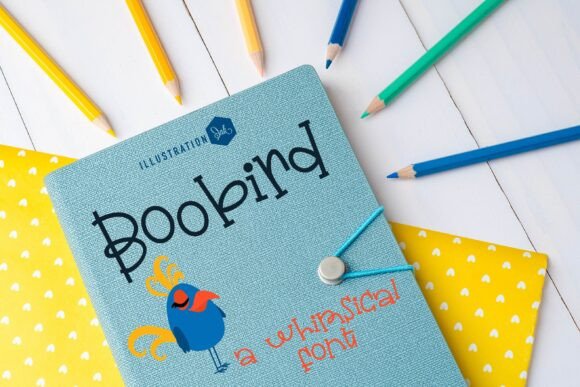
The Boobird Font: A Whimsical Serif for Creative Projects
I still remember the design project that led me to discover the Boobird Font. I was working on a whimsical invitation for a friend’s baby shower, and I was struggling to find the perfect font to match the playful theme. That’s when I stumbled upon Boobird Font, a hand-crafted serif font with a bouncy baseline that instantly captured the lighthearted and carefree spirit of the event.
- ✨ Unique and whimsical design that’s perfect for creative projects
- ✅ Hand-crafted feel that adds a personal touch to your designs
- 🎉 Bouncy baseline that adds a playful touch to your text
- 💻 Works well for both digital and print projects
Of course, no font is perfect, and Boobird Font has a few quirks:
- 🤔 Limited character set, which may not be suitable for projects that require a wide range of characters
- ⚠️ May not work well for body text or long-form content due to its playful and attention-grabbing nature
The Story Behind Boobird Font
Boobird Font was designed by a talented type designer who wanted to create a font that captured the whimsy and playfulness of handwritten text. Inspired by the beauty of imperfection, the designer crafted a font that’s both elegant and quirky.
- Q: What is Boobird Font?
- A: Boobird Font is a hand-crafted serif font with a bouncy baseline, perfect for creative projects.
- Q: Is Boobird Font suitable for body text?
- A: No, Boobird Font is best used for headings, titles, and short-form content due to its playful and attention-grabbing nature.